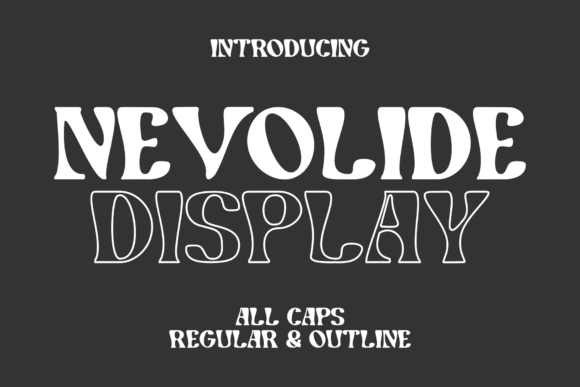
Step into the realm of visual eloquence with Nevolide Font, a display font crafted to elevate your designs to new heights. Its meticulously designed characters exude an aura of sophistication and coolness, making it the perfect choice for a myriad of creative endeavors. Whether you're embarking on logo design, branding projects, crafting elegant invitations, adorning wedding stationery, or captivating your audience on social media, Nevolide Font is your trusted companion.
With its modern and timeless appeal, Nevolide Font transcends the boundaries of ordinary typefaces. Its versatility knows no bounds, seamlessly blending with various design aesthetics. Its strokes, reminiscent of a skilled artisan's brushstrokes, infuse your creations with an artistic flair that commands attention. Dive into the world of Nevolide Font and unlock a treasure trove of creative possibilities.
Envision your logo, the gateway to your brand's identity, adorned with the striking presence of Nevolide Font. Its bold and confident strokes leave an unforgettable impression, etching your brand's essence into the minds of your audience. Elevate your branding efforts to new heights, conveying a sense of professionalism, modernity, and sophistication that sets you apart from the competition.
Picture your invitations and stationery transformed into exquisite works of art, each letter carrying a story, a promise, or an invitation to an unforgettable event. Nevolide Font's elegant curves and sharp angles dance harmoniously on the page, captivating the hearts of your recipients. Let your wedding designs blossom with Nevolide Font's timeless beauty, creating a visual symphony that captures the essence of love and joy.
Harness the power of Nevolide Font to create social media posts that ignite engagement and leave a lasting impression. Its visually striking characters demand attention, drawing your audience into your captivating content. Elevate your brand's online presence with Nevolide Font, turning your social media platforms into captivating visual masterpieces.